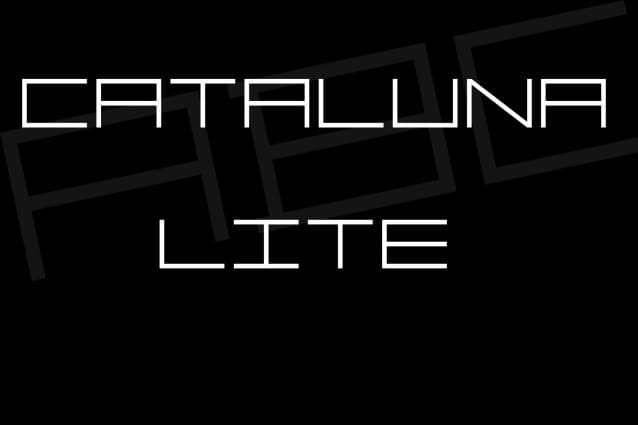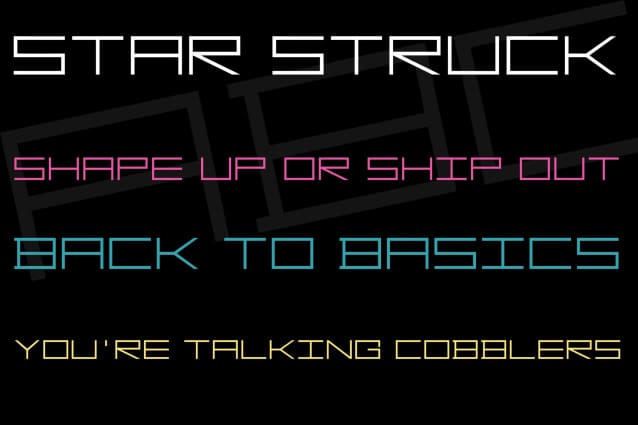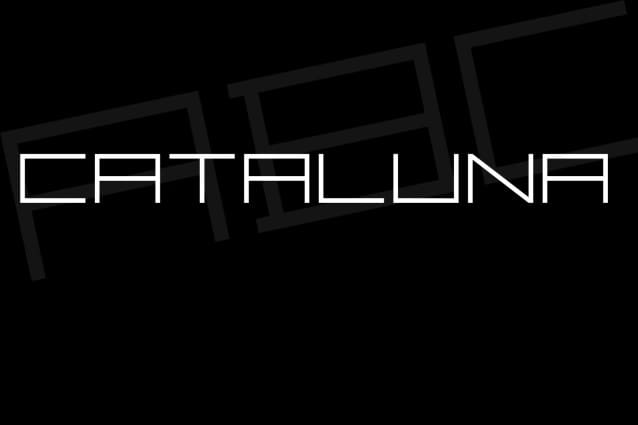
Cataluna Font
Cataluna Font – Channeling the smooth vibes of mid-century modern and a dash of futuristic flair, I crafted a font that’s both polished and progressive. This geometric sans-serif is all about crisp angles, clean lines, and letterforms with a unique edge.
Dive in and play around with it! I’m convinced this font can seriously level up your designs, injecting a dose of tomorrow into your creative projects.